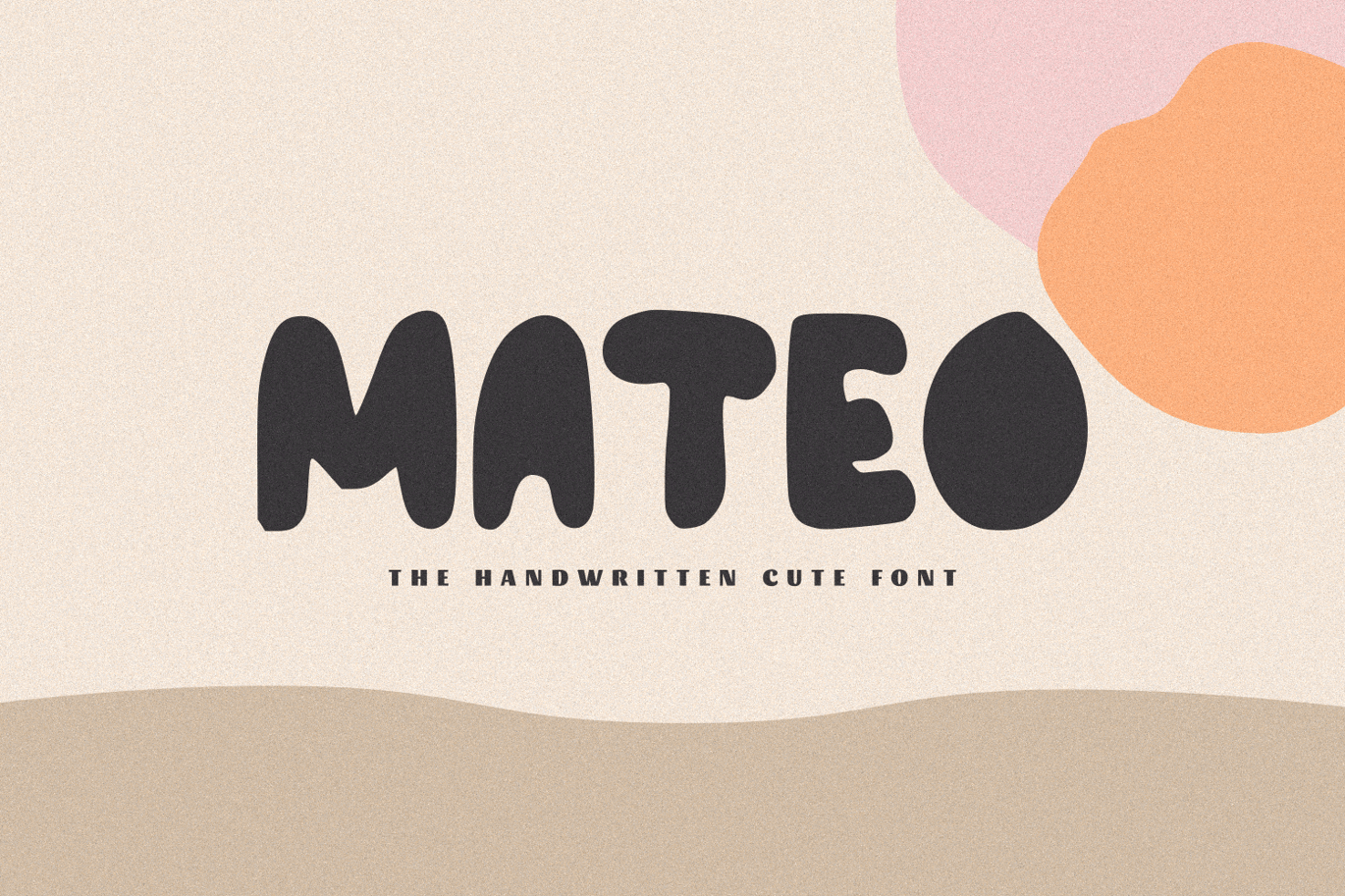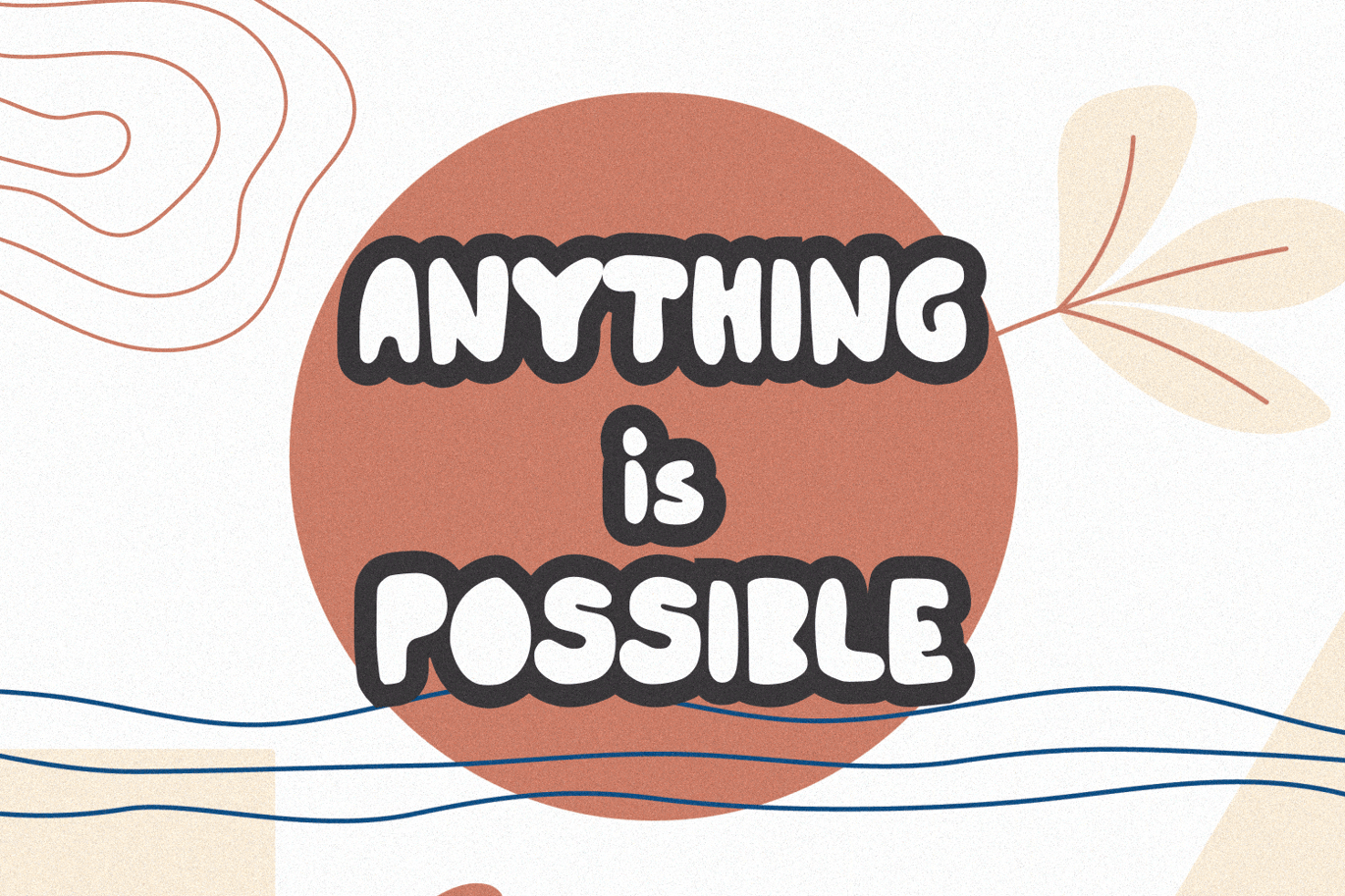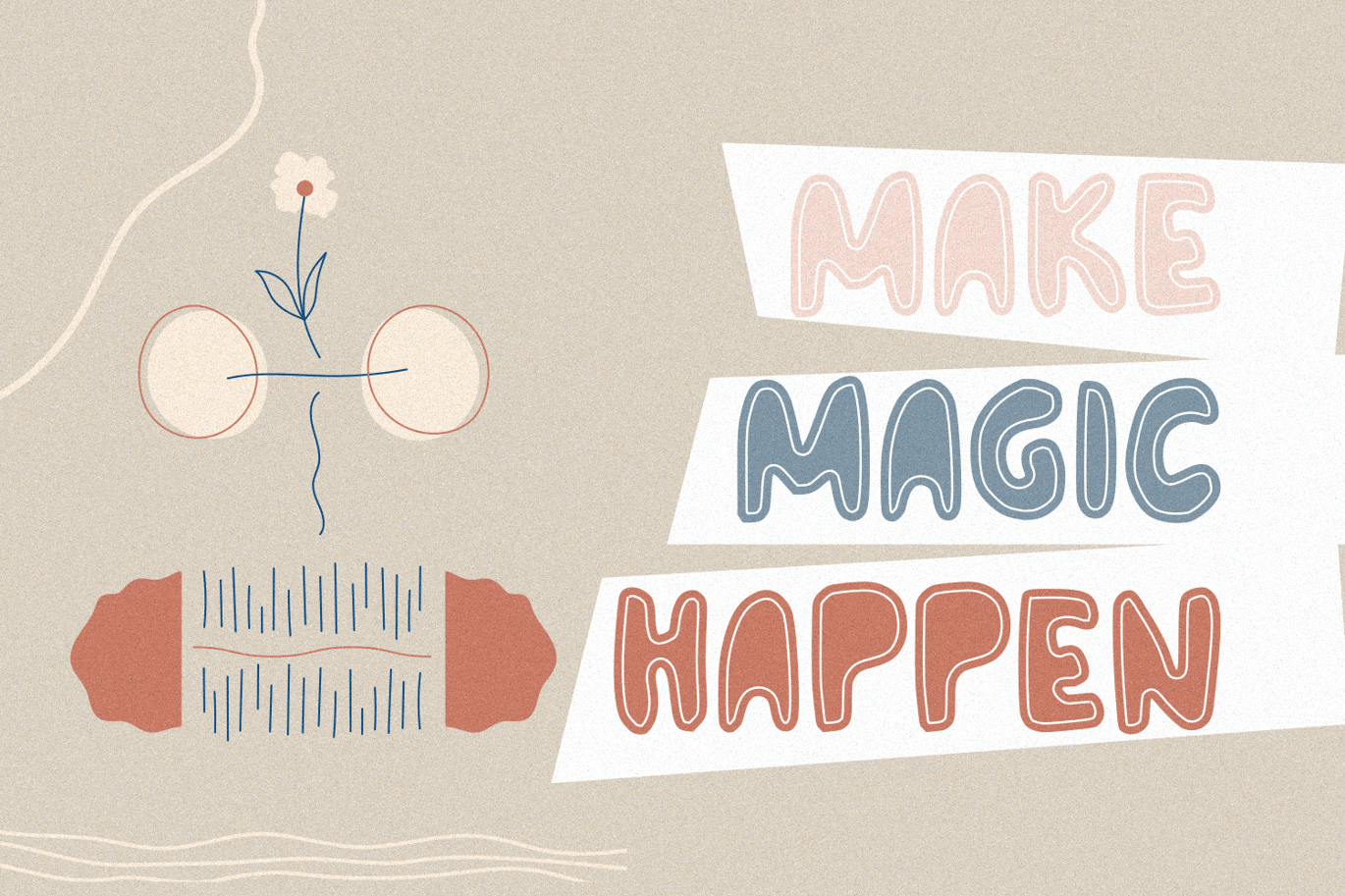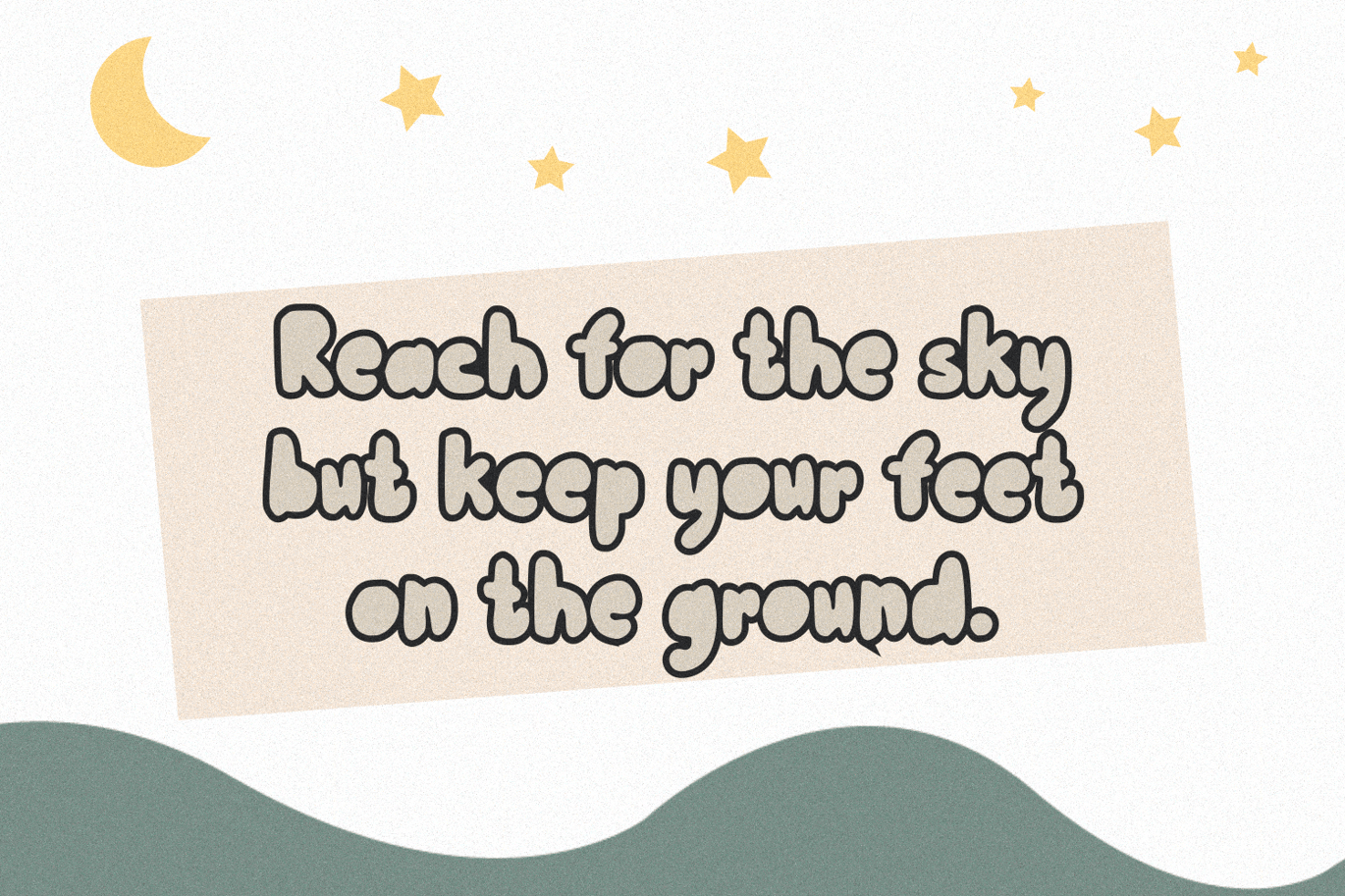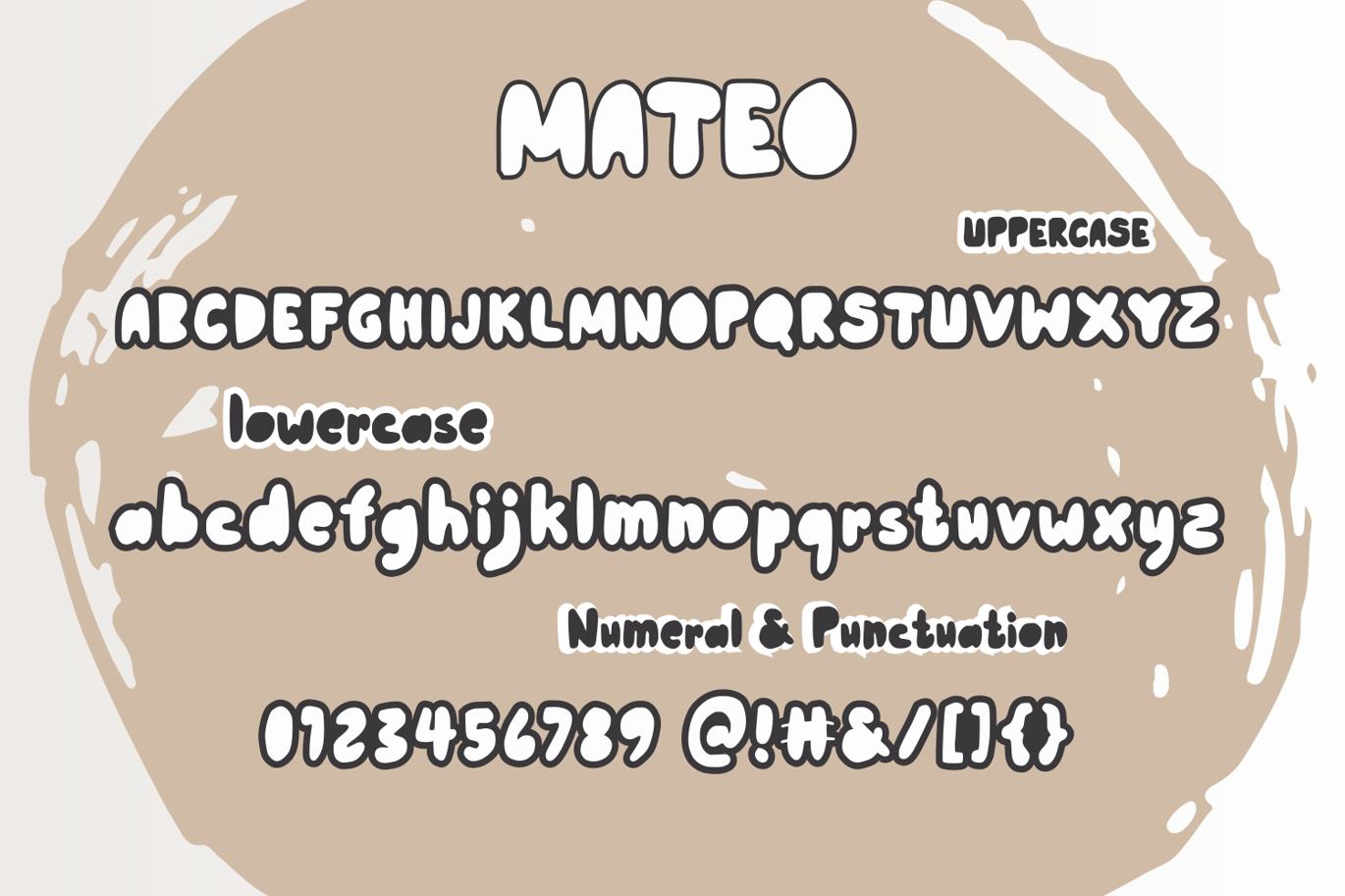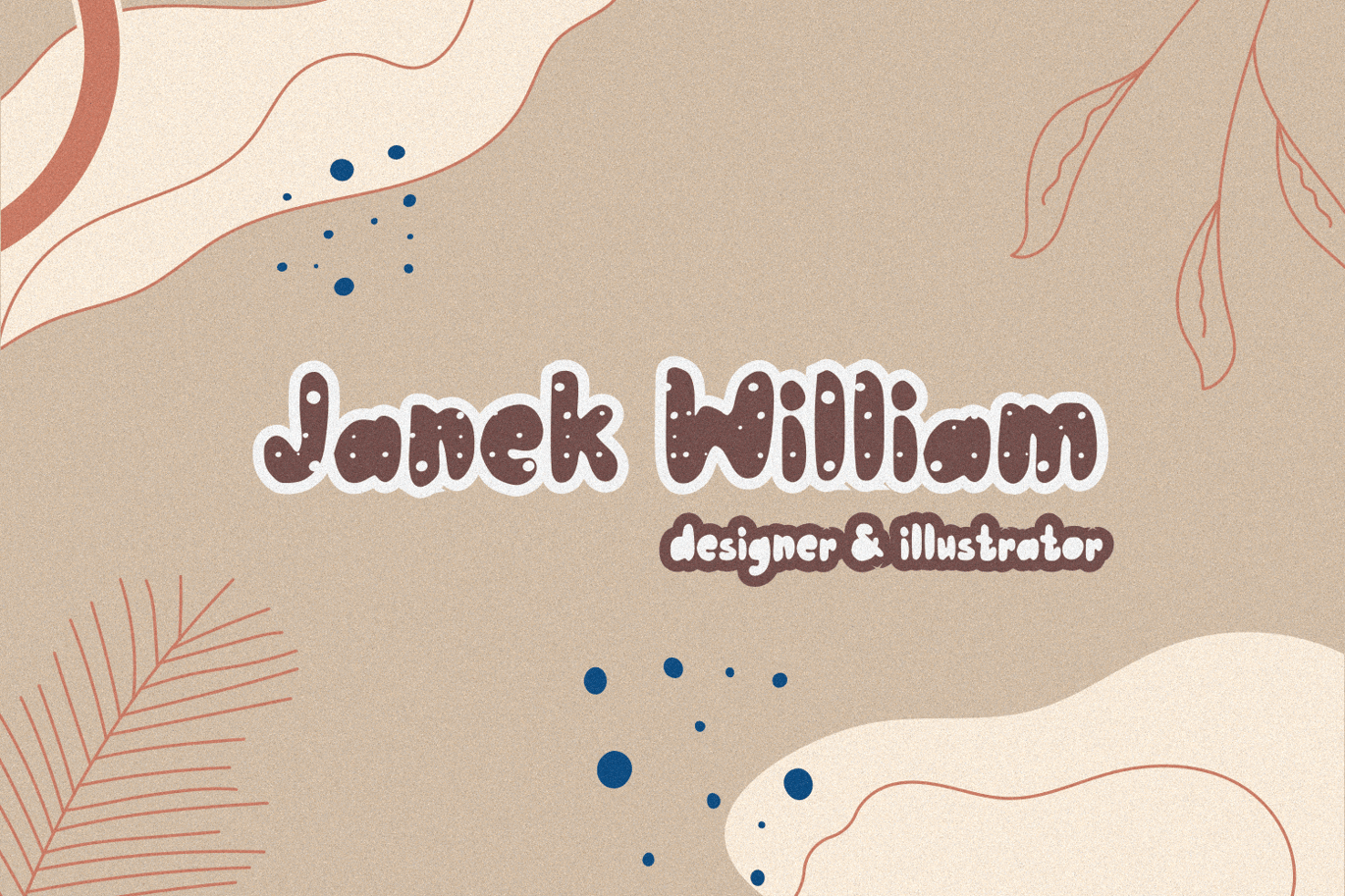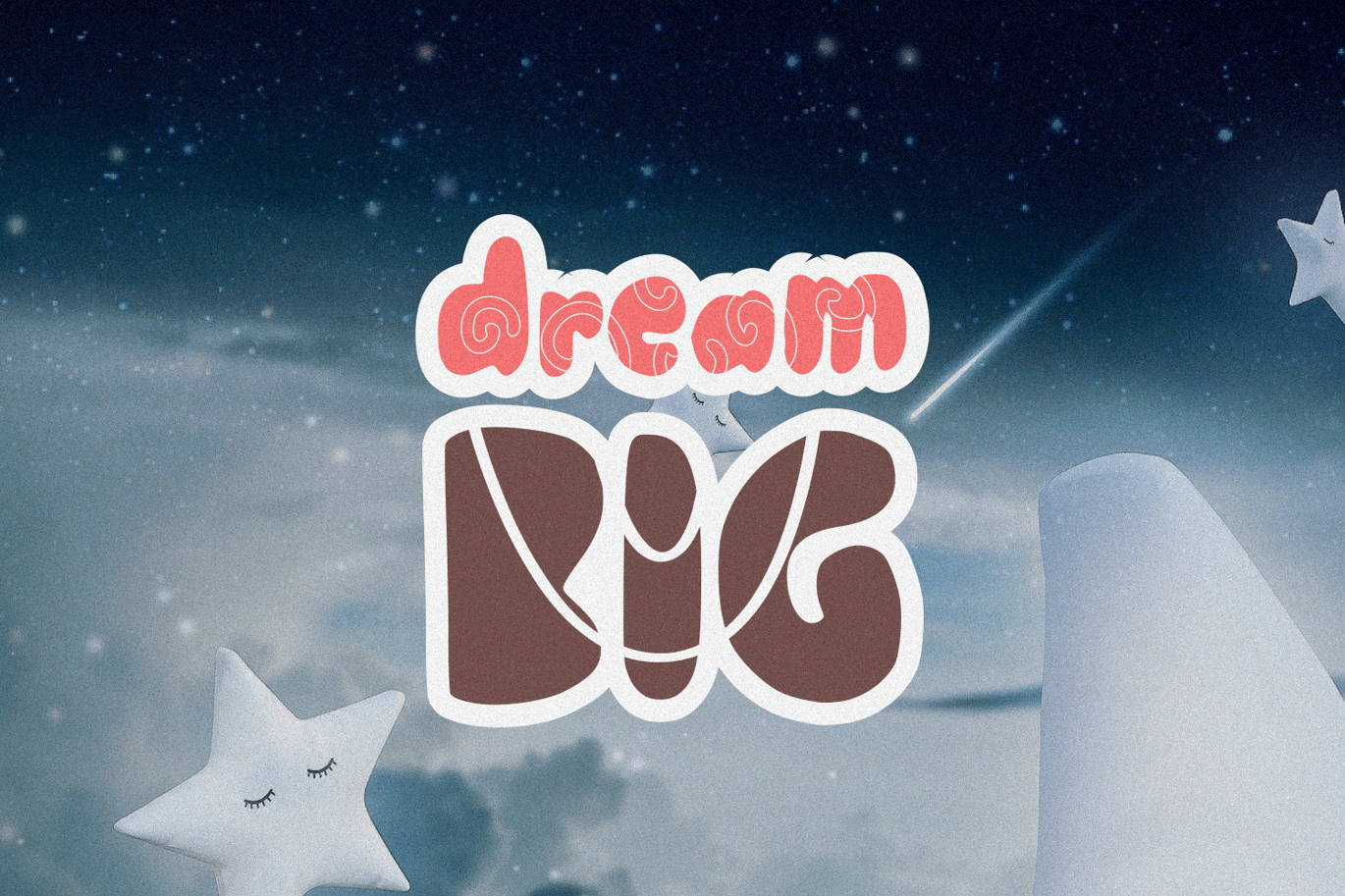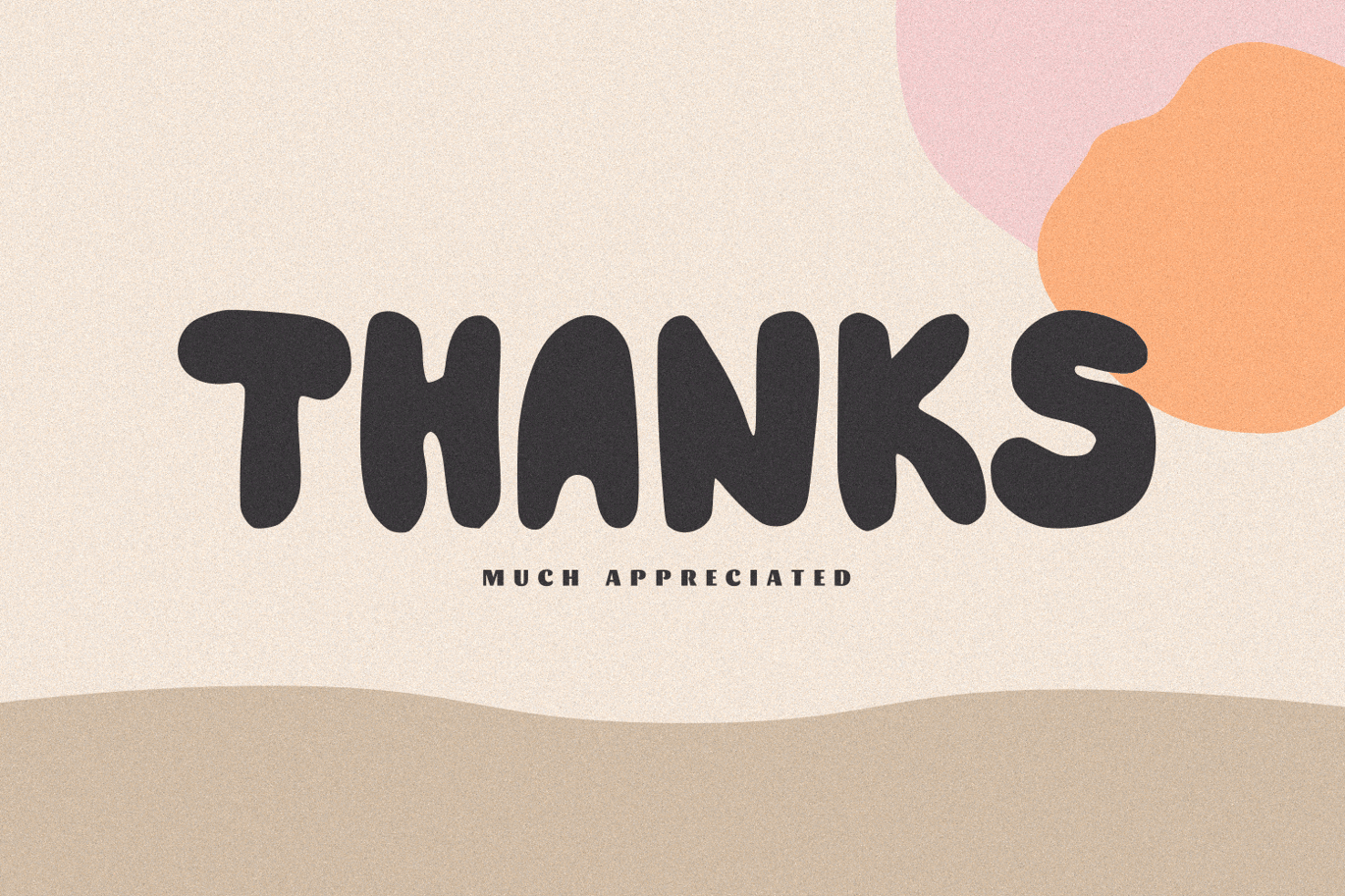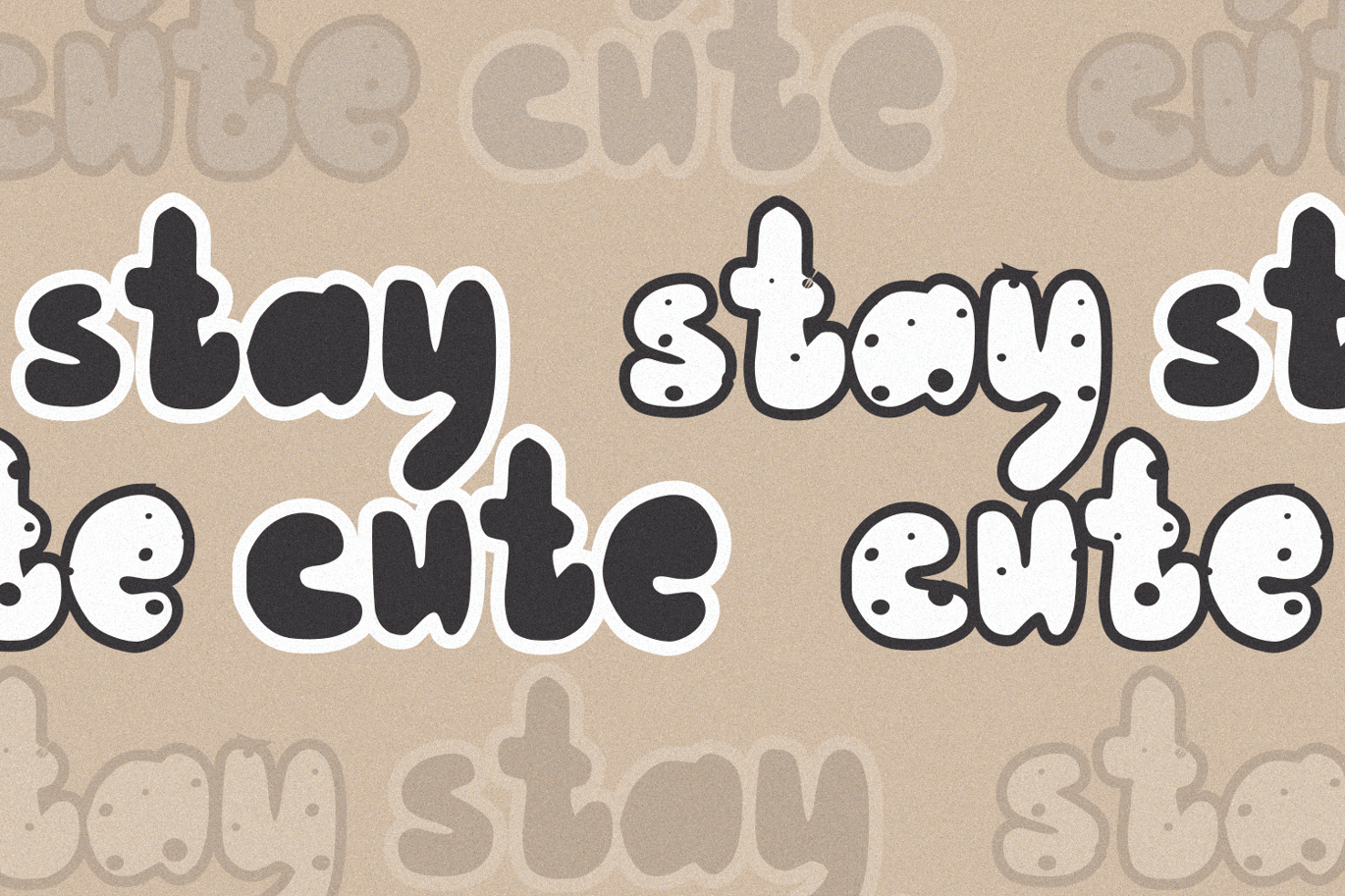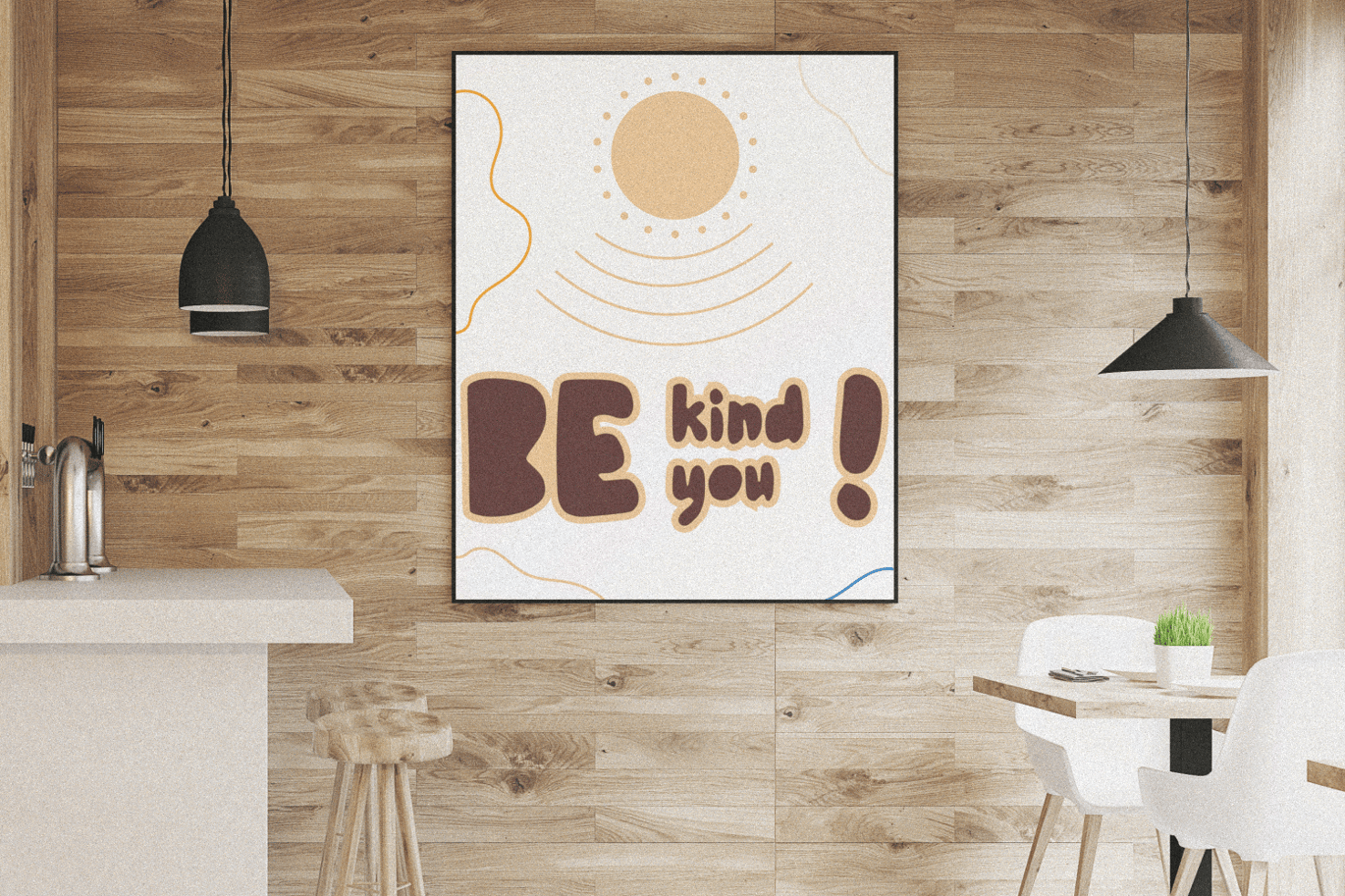
Mateo – The Handwritten Cute Font
Mateo – The Handwritten Cute Font, every single letter has been carefully crafted to make your text looks beautiful. it’s perfect for logos, name cards, magazine layouts, invitations, headers, or even large-scale artwork.
- Mateo font including upper & lowercase characters, numerals and more of symbols.